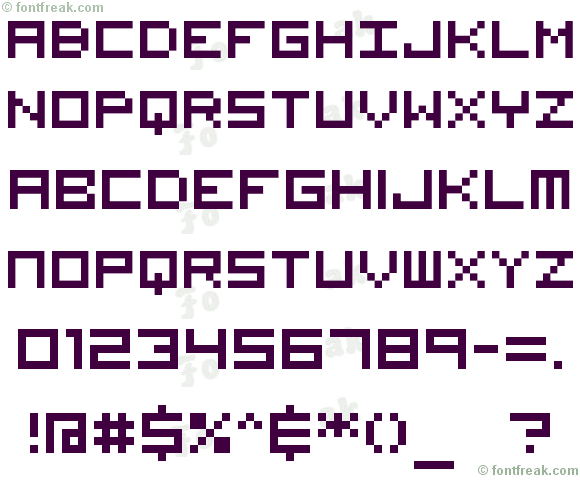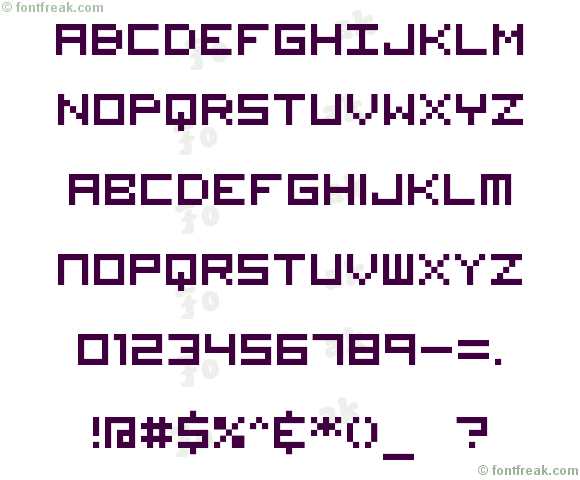
About Visitor
The Visitor font by Ænigma Fonts is a unique display typeface that captures attention with its distinctive geometric style. This freeware font features bold, block-like letterforms that exude a modern and playful vibe, making it an excellent choice for various design projects. The stroke weight is consistent, providing a sturdy and impactful presence, while the slightly rounded corners add a touch of softness to the overall aesthetic. The spacing between characters is generous, enhancing legibility and allowing each letter to stand out, making it suitable for high-visibility applications.
The Visitor font is particularly well-suited for use cases such as eye-catching movie posters, dynamic branding for tech startups, modern signage, graphic t-shirts, and vibrant event flyers. Its unique character set makes it ideal for projects that aim to convey a sense of innovation and creativity. Graphic designers, small business owners, and content creators will find this font a valuable addition to their toolkit, as it can elevate the visual impact of their work while remaining accessible through its free download.
What truly sets the Visitor font apart is its ability to blend playful creativity with functional design. The font’s bold and modern characteristics ensure that it commands attention without overwhelming the viewer, making it a versatile option for various applications. Whether you're creating an advertisement or designing merchandise, the Visitor font brings a unique flair that can enhance the overall aesthetic of any project. With its distinctive style and usability, this font is a must-have for anyone looking to make a statement in their designs. Discover the Visitor font free download today and let your creativity flourish.